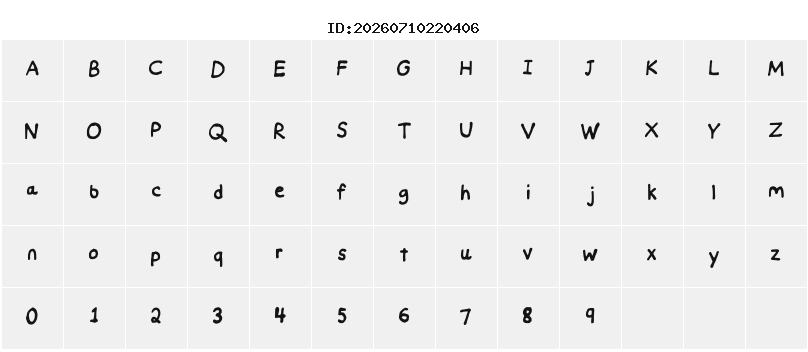
Handwritten Nat29 Font Preview
• Font Name: Handwritten Nat29 Font
• Full Font Name: Handwritten Nat29 Font Medium
About Handwritten Nat29 Font.ttf
Handwritten Nat29 Font.ttf is a modern, elegant sans-serif font designed for ultimate readability and visual harmony. Perfect for branding, headlines, web design, and print materials.